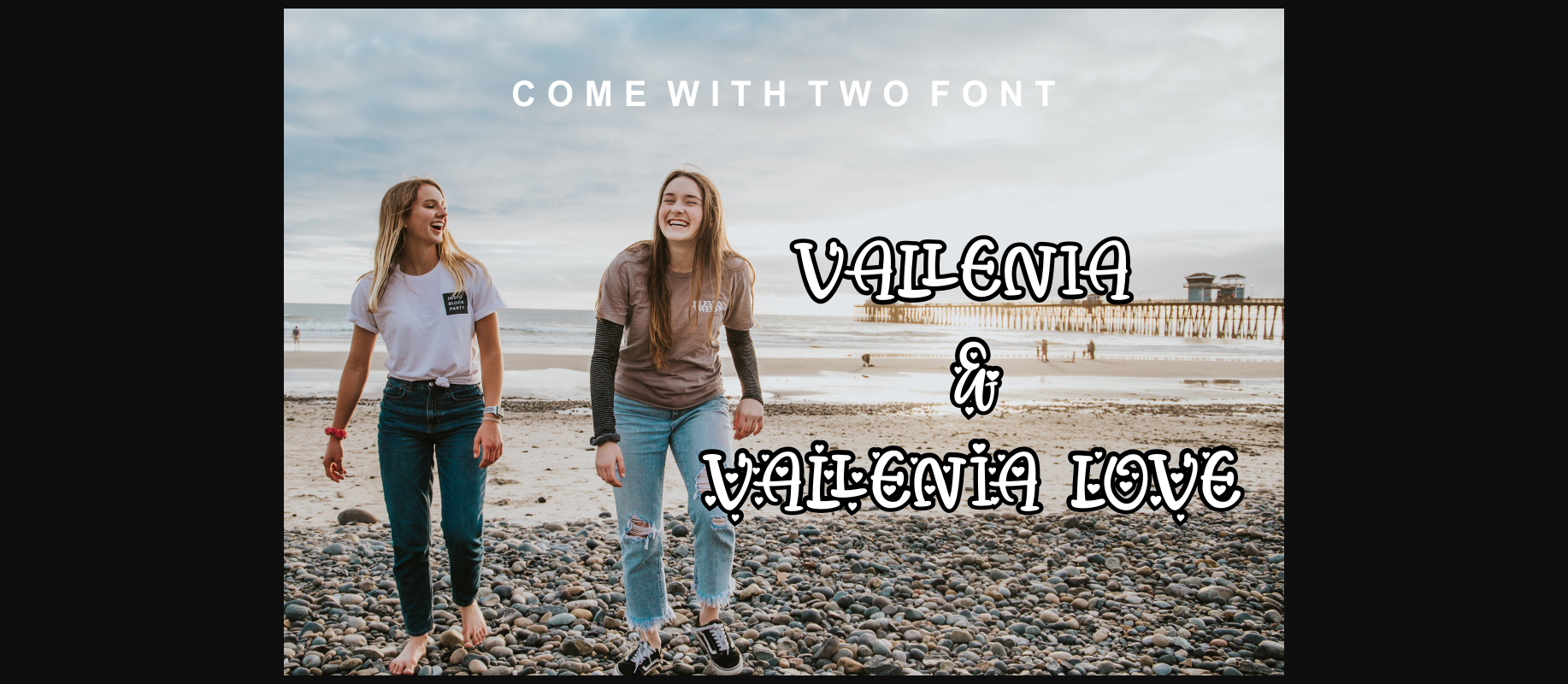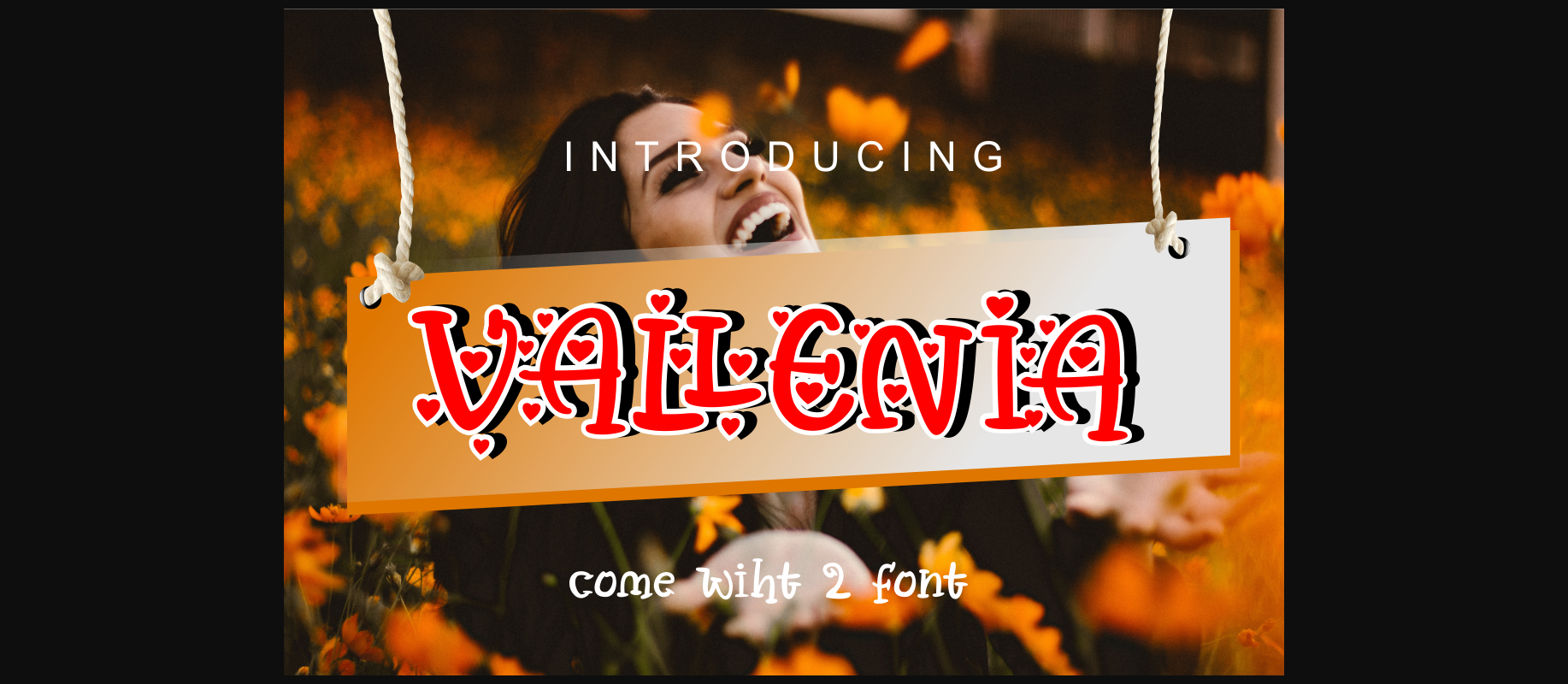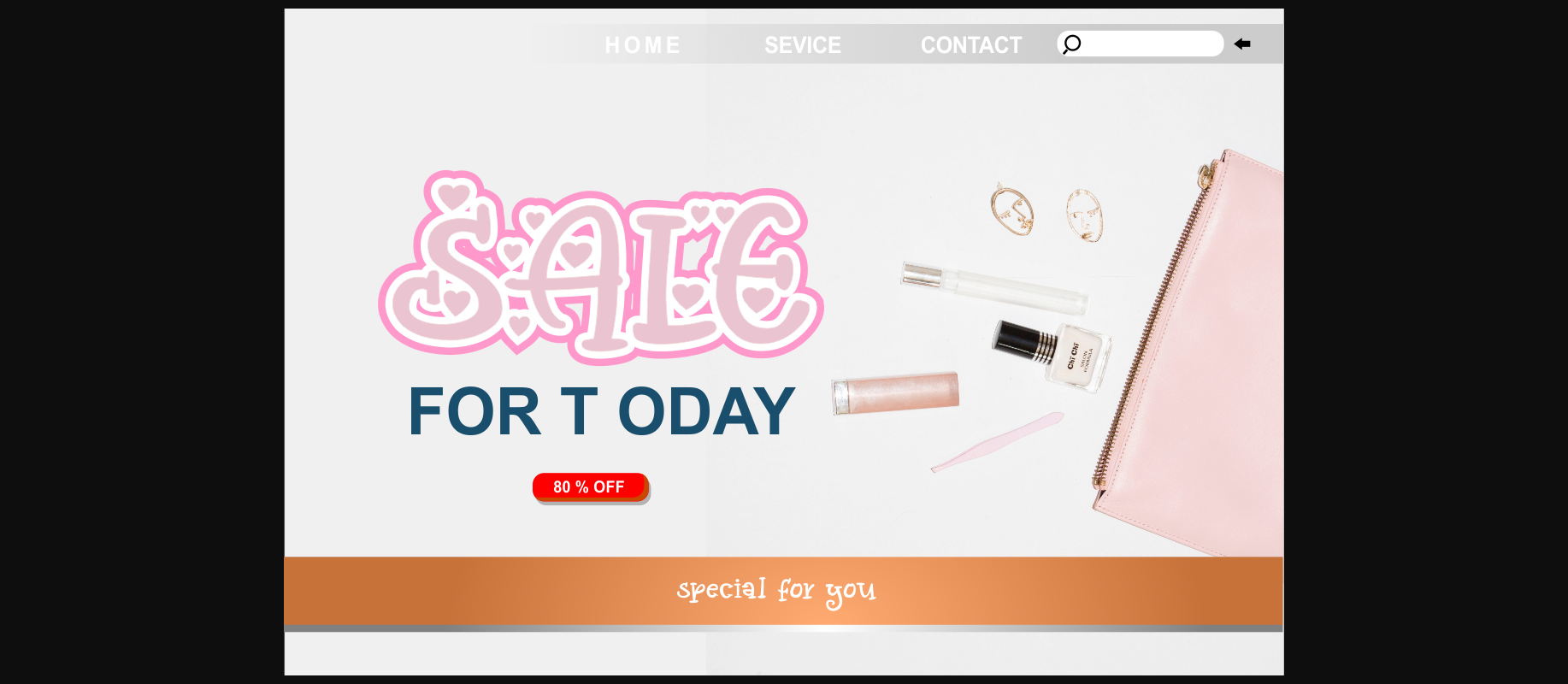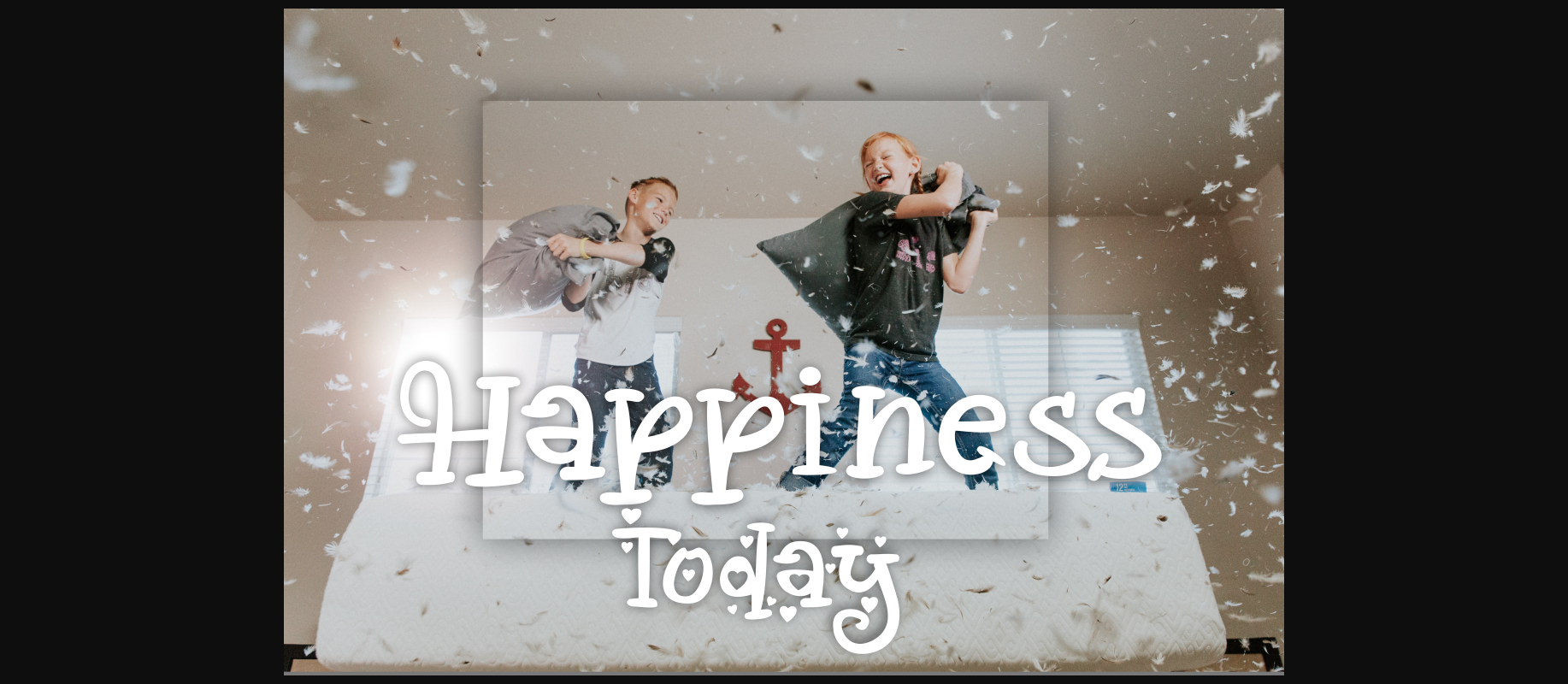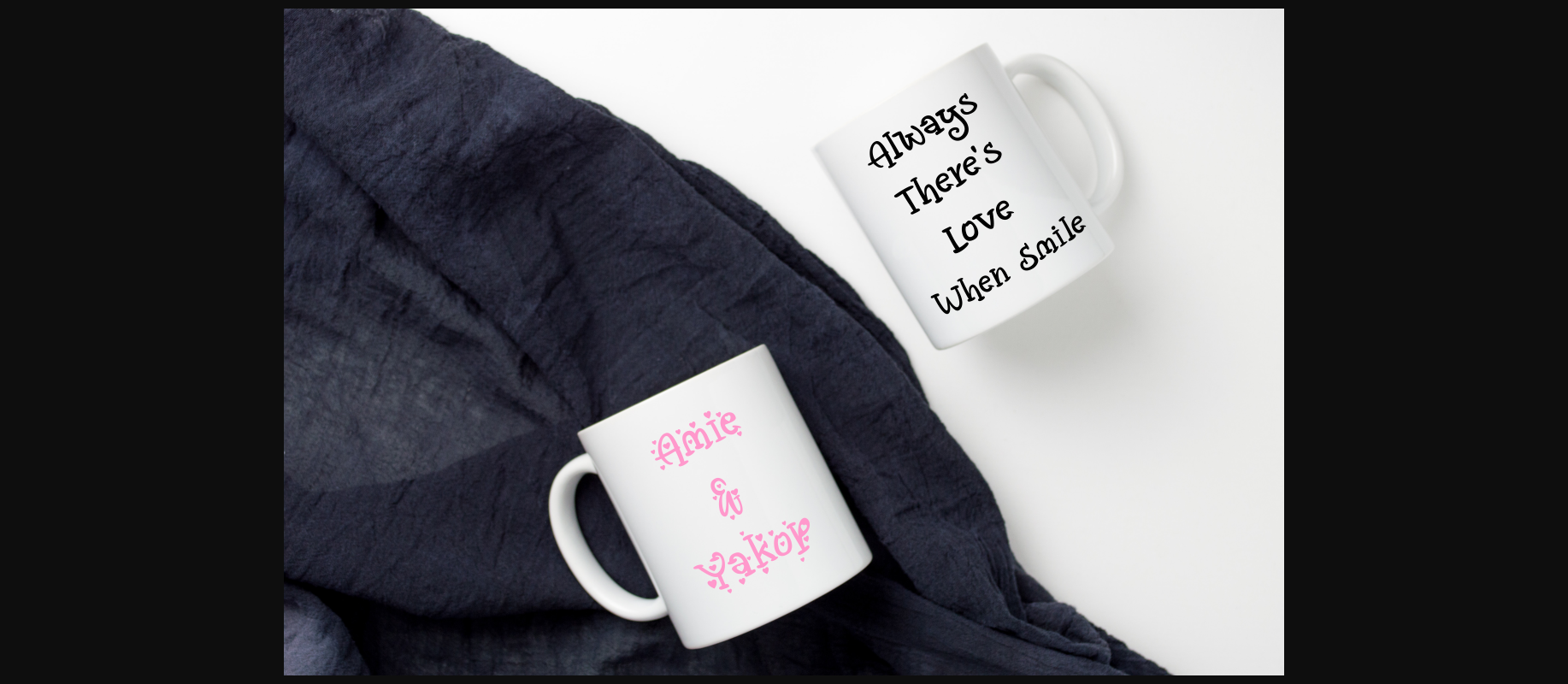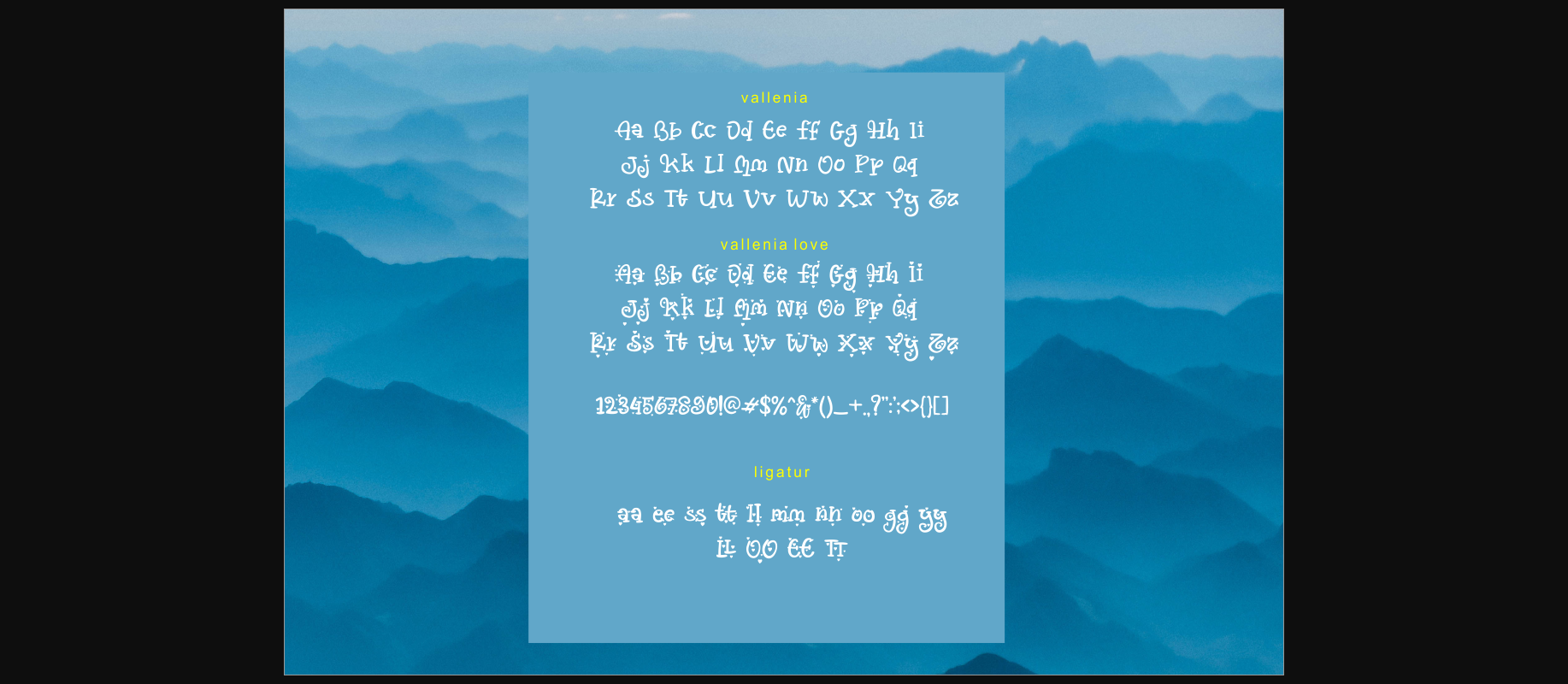
About Vallenia Love Font
Vallenia Love is a decorative and carefully handcrafted font to become a true favorite. Its casual charm makes it appear wonderfully down-to-earth, readable and, ultimately, incredibly versatile. Vallenia Love will look outstanding in any context, whether it’s being used on busy backgrounds or as a standalone headline!